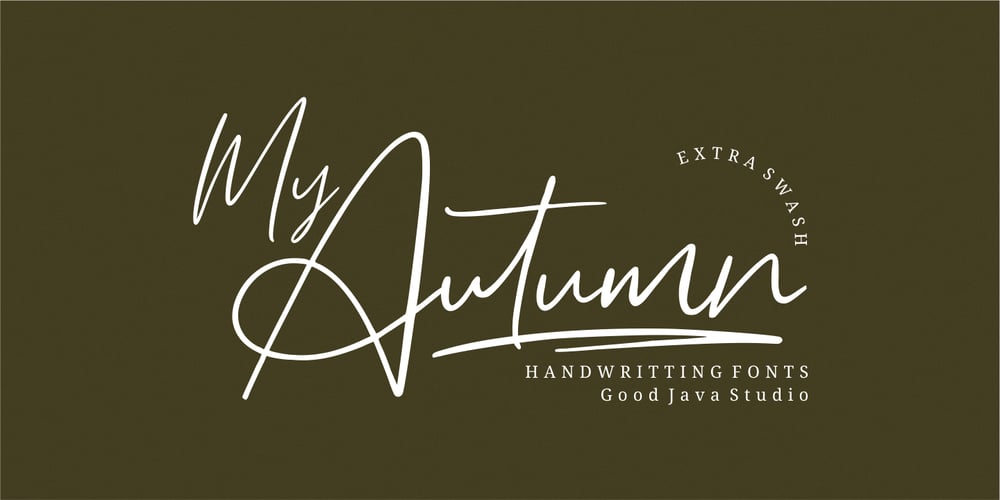
My Autumn Font Family was designed by Good Java and published by Good Java Studio. My Autumn contains 1 styles and family package options. My Autumn signature font is a natural & modern handwritten font. It’s perfect for logos, invitations, stationery, wedding designs, social media posts, advertisements, product packaging, product designs, labels, photography, watermark, special events or anything. This font includes Multilingual support. What’s Advantages My Autumn? – Very simple installation – PUA Encoded open – Great for branding, logotype, handlettering, invitations, or fashion branding – Multilingual Support – Support for Adobe Illustrator, Corel Draw, Indesign, Adobe Photoshop and Procreate 4.3 (NEW UPDATE) – Support for Mac or Windows